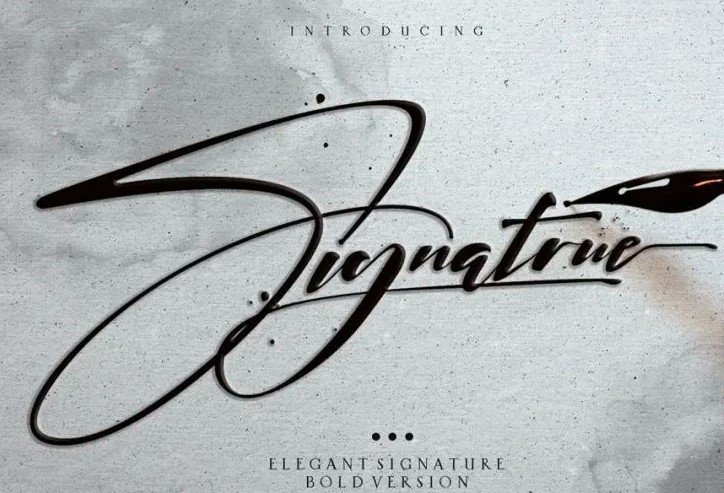
The font contains natural handwriting look which will add perfectness to your designs. It was designed by Typeline studio. You can take an idea of where to use
If you are willing to download and utilized the perfect signature typeface so you must have to download and use Signatrue Elegant Signature Font which is the good-looking signature typeface that comes with impressive features.
The font contains natural handwriting look which will add perfectness to your designs. It was designed by Typeline studio. You can take an idea of where to use this font in the usage section forget an idea about it.
The Signatrue Font has comes with rich features and an awesome stylistic set which will put more attractivity into your designs. it comes in ttf and otf format.
The Signatrue Elegant Signature Font is the famous and amazing typeface typeline studio.